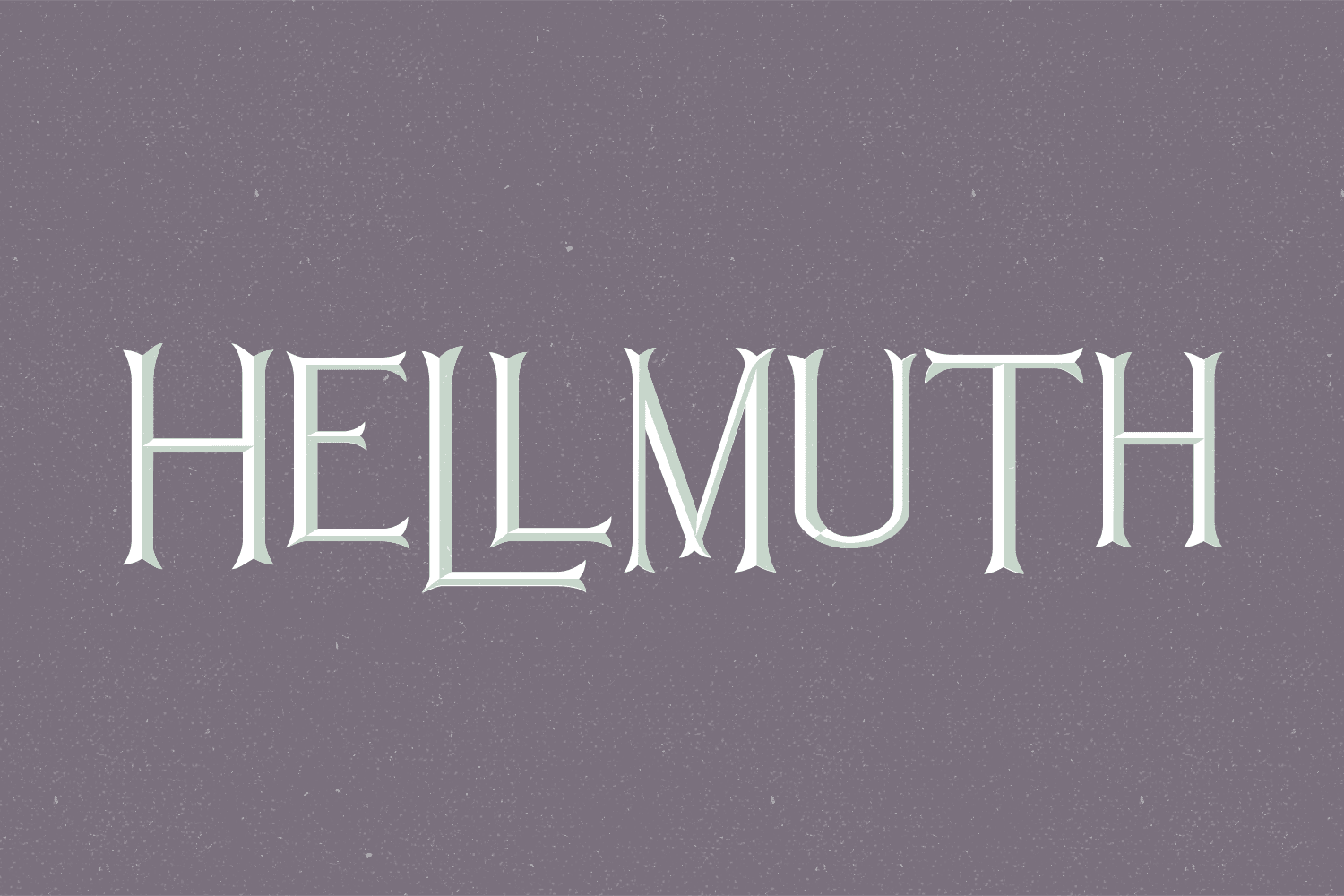
Hellmuth
A font loosely based on the entrance to the Hellmuth Building in New York (which I always read as Hellmouth Building and think, "That's convenient, you know, for slayers"). I suggest mixing up the lowercase and uppercase characters at random for the best results.
This family also includes a shadowed version plus stackable beveled and shadow only options.